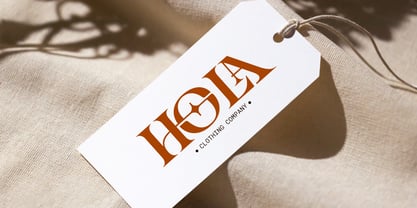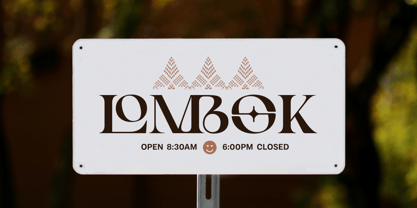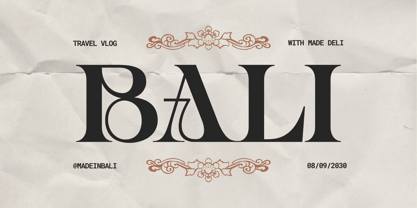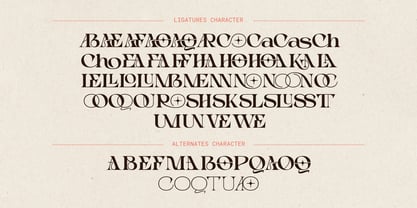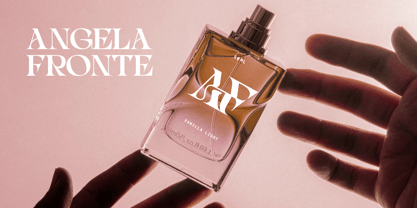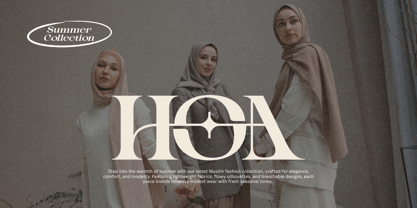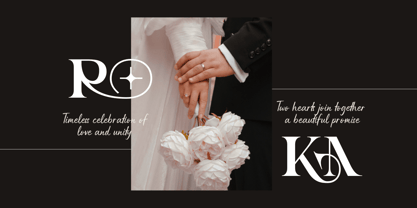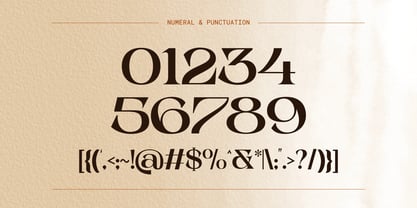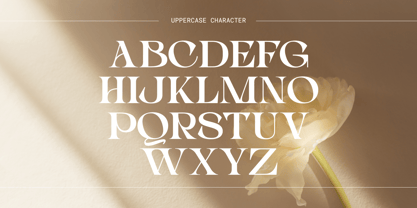
Choga
by Nirmana Visual
The Choga Font Family was designed by Sigit Dwipa and published by Nirmana Visual. Choga contains 2 styles and family package options. More about this family
Choga is a modern luxury font crafted for premium logos and sophisticated branding. Designed with elegance in mind, it features both Regular and Italic styles, offering versatility for diverse creative projects. With over 100 ligatures and alternates, Choga allows endless customization to create unique, stylish wordmarks. Its refined letterforms blend modern aesthetics with timeless luxury, making it perfect for high-end fashion, beauty, and lifestyle brands seeking a distinctive visual identity.
Designers: Sigit Dwipa
Current Foundry: Nirmana Visual